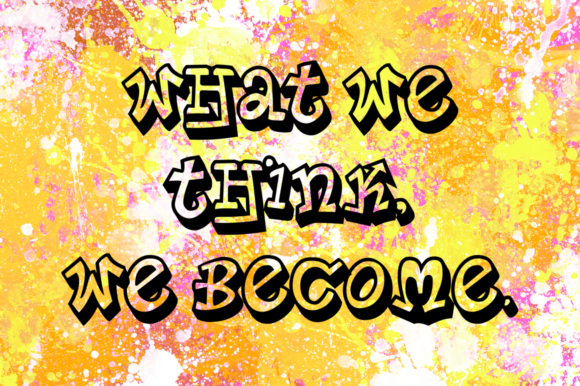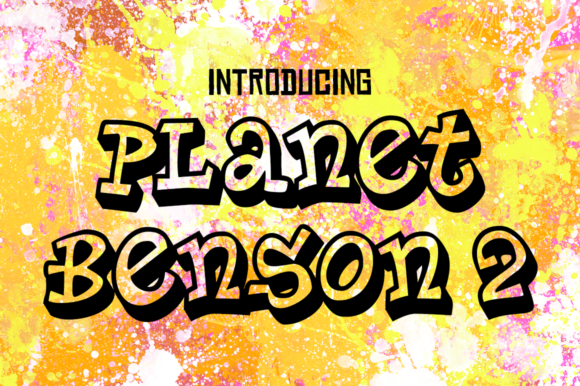
Planet Benson 2
About Planet Benson 2 Font
Planet Benson 2 is an urban, street art inspired graffiti font in an outline style. This free font was crafted by the talent at Typodermic.